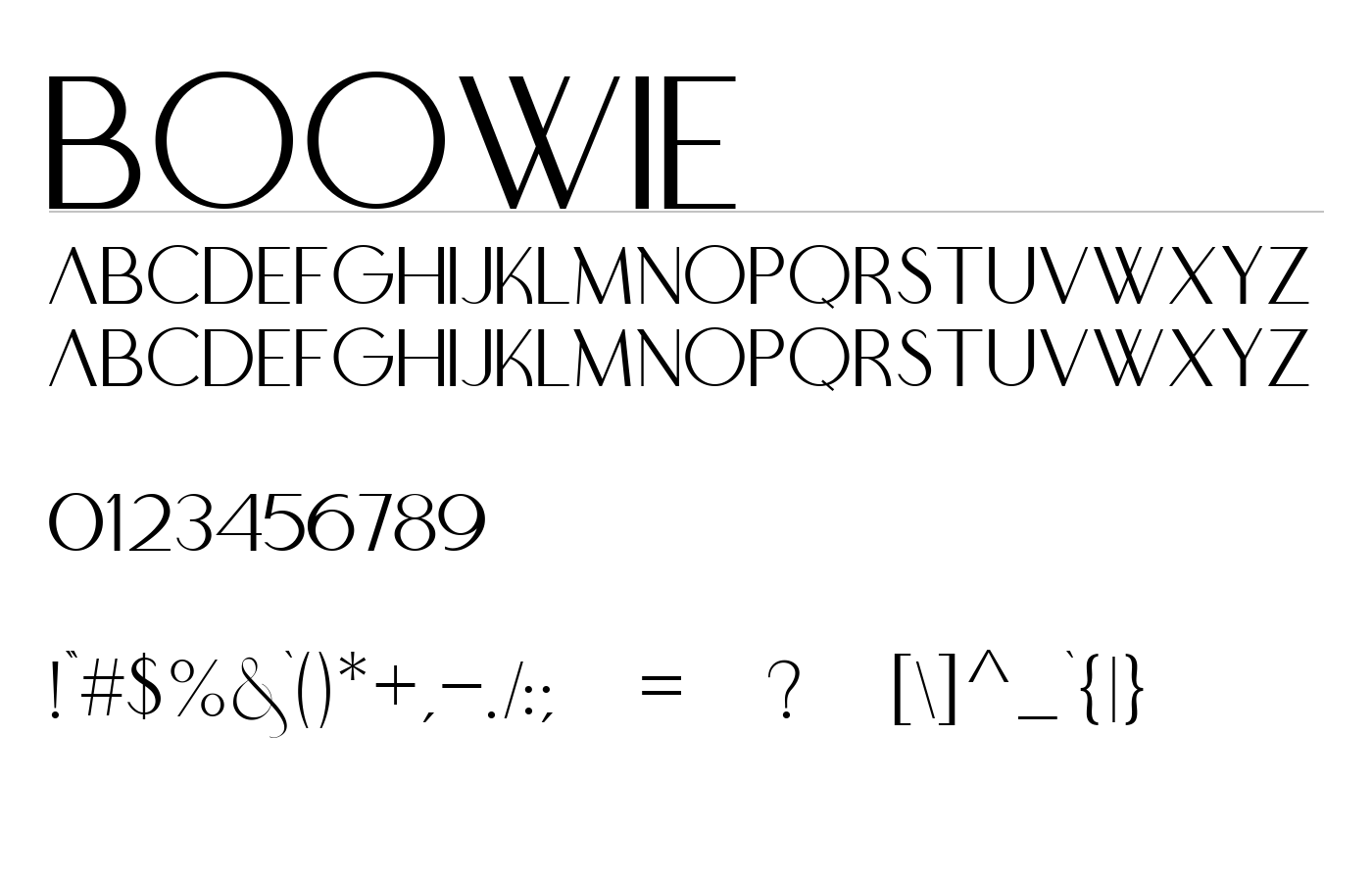
BOOWIE is a slender, modern sans serif font with high contrast and elegant, geometric letterforms. Its refined, airy style and distinctive sharp details lend it a sophisticated and contemporary feel, making it ideal for fashion branding, luxury editorial headlines, and stylish logos where a clean yet striking aesthetic is desired. This font shines in applications that demand a touch of elegance and modernity without sacrificing readability.
BOOWIE Font
About BOOWIE Font